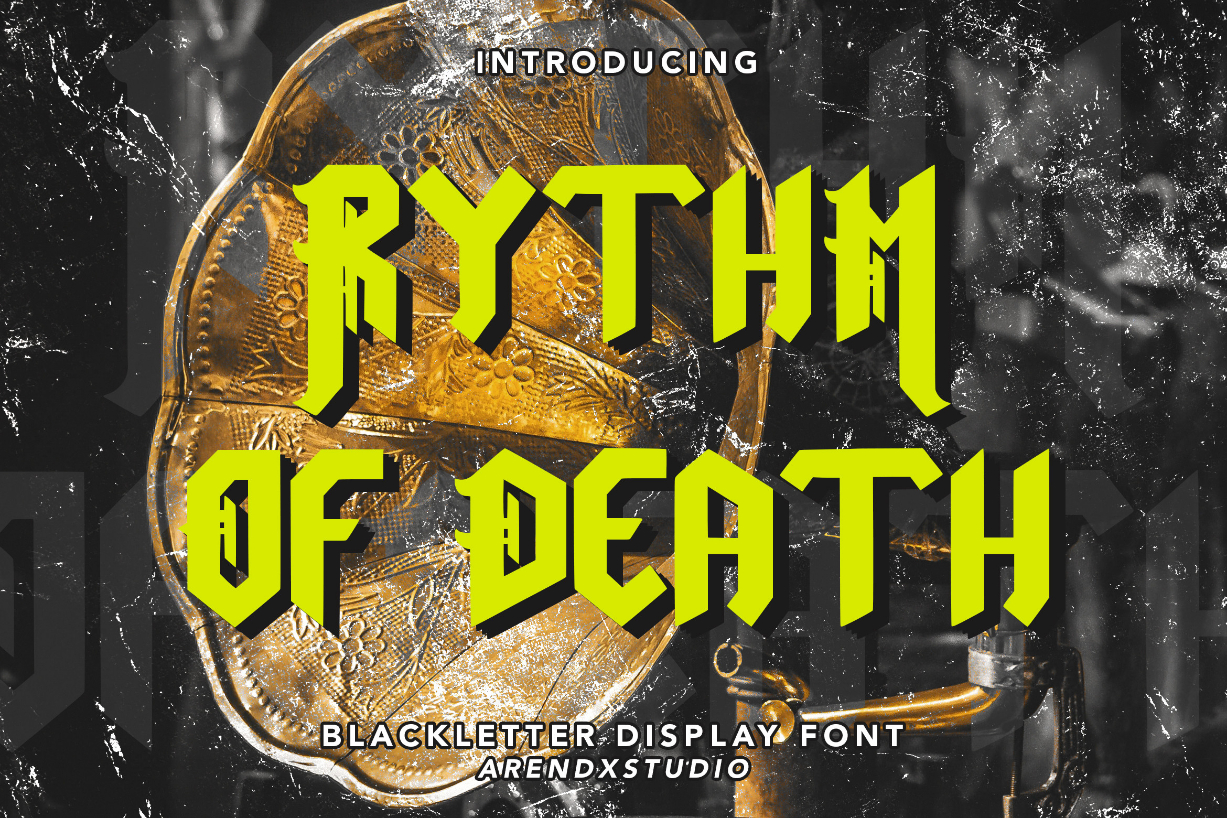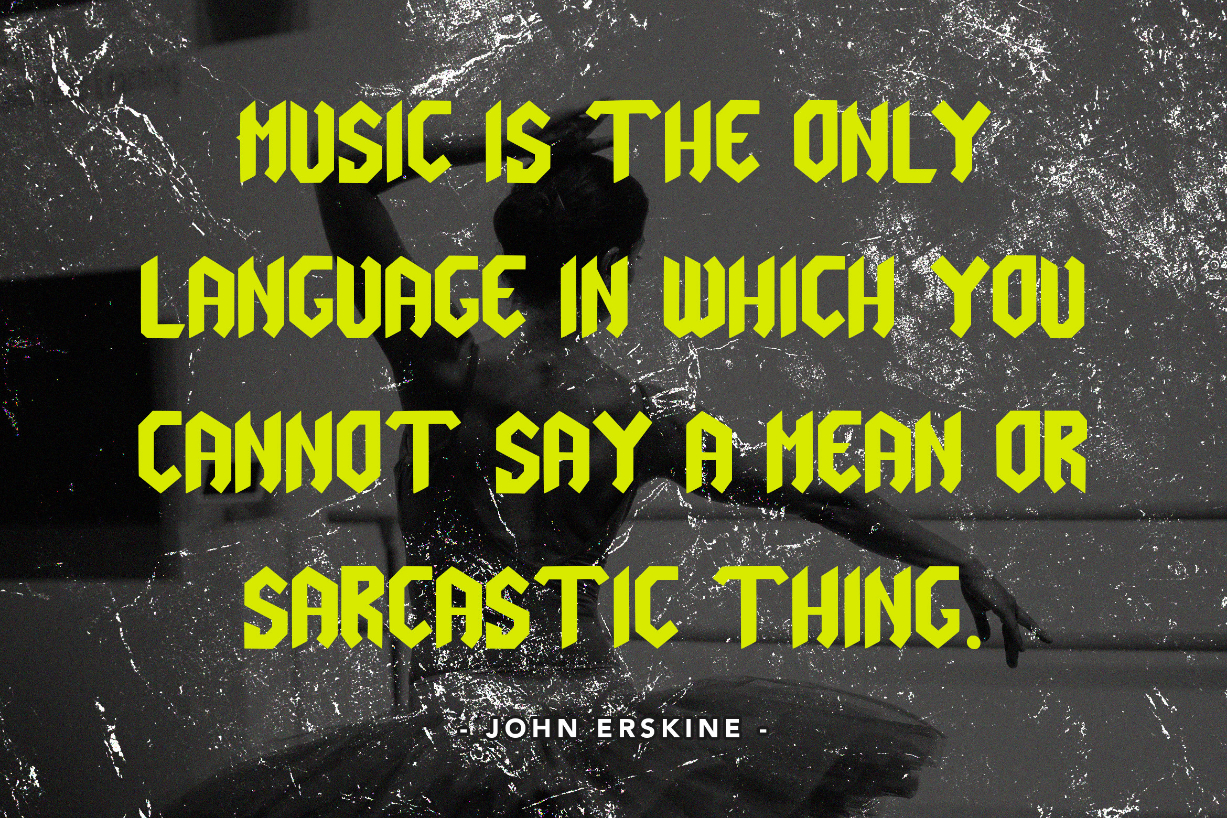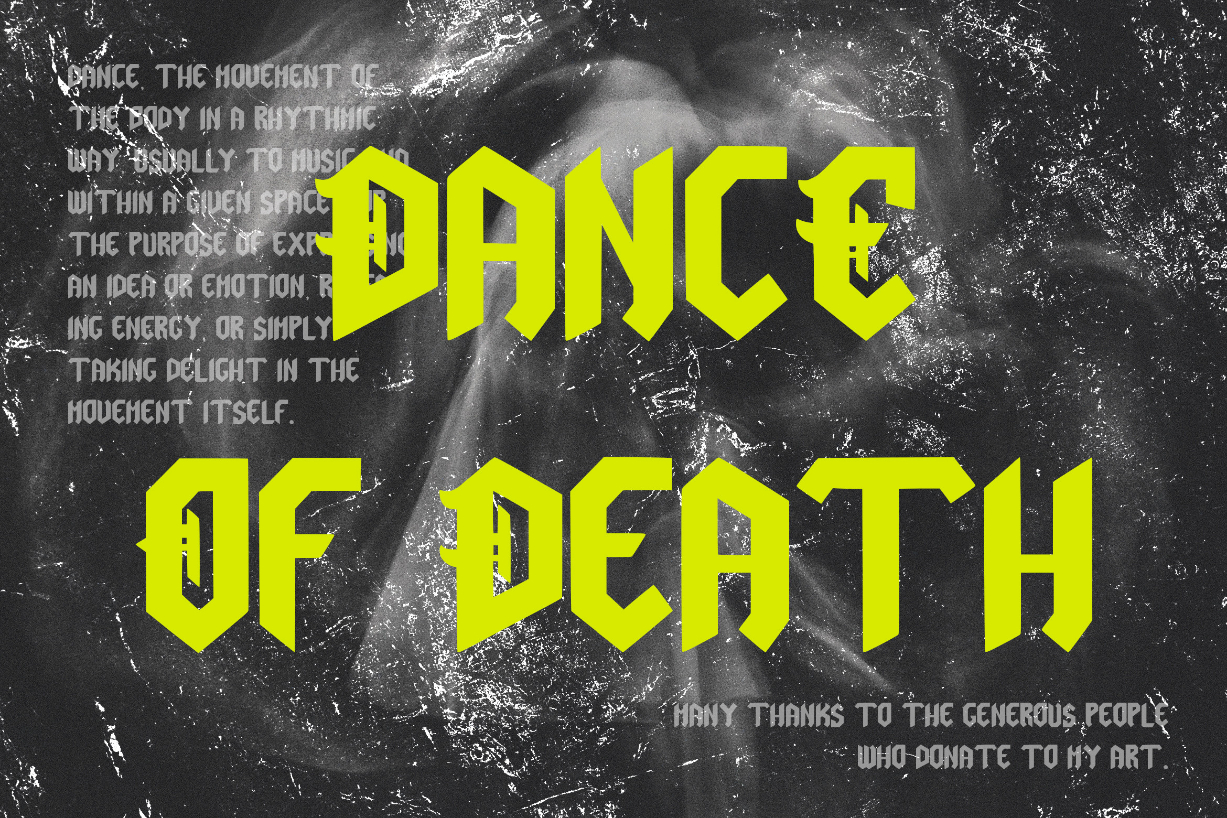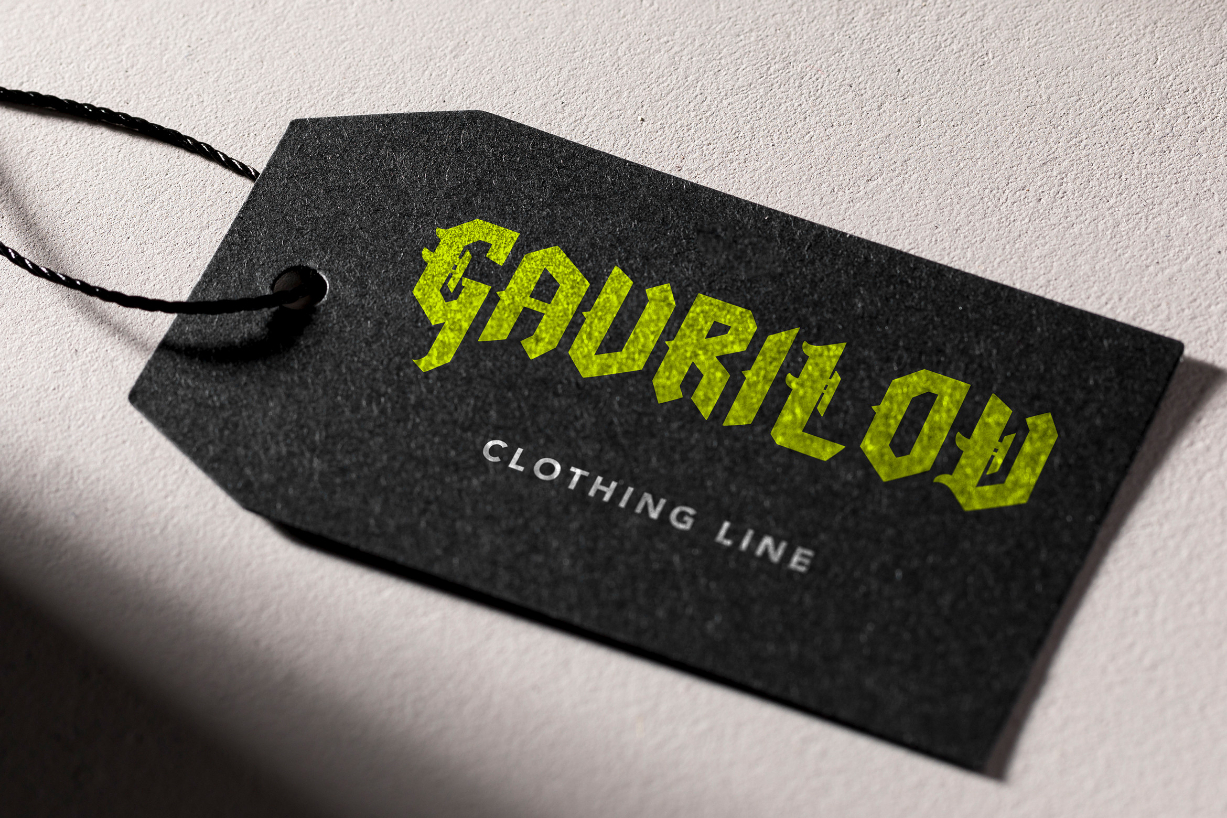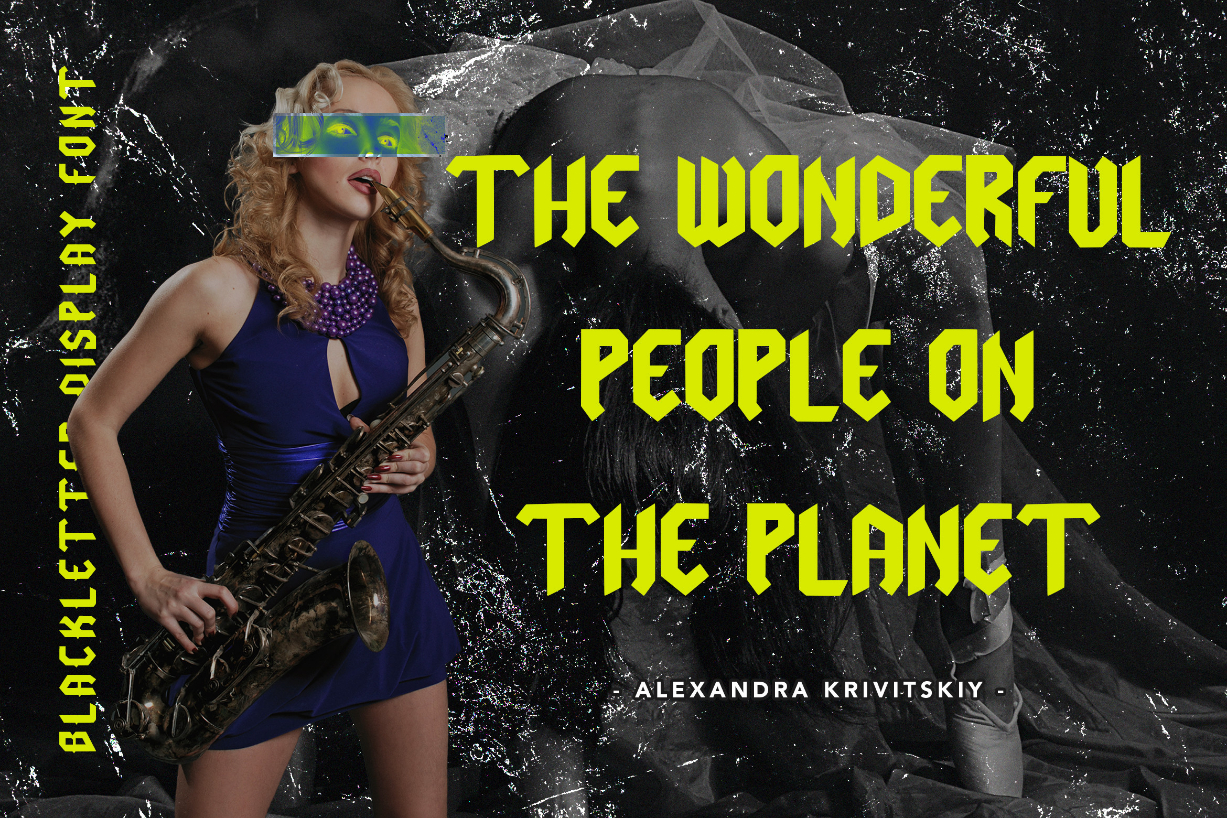
About Rythm of Death Font
Rythm of Death is a cool, bold and thick lettered blackletter font. No matter the topic, this font will be an incredible asset to your fonts’ library, as it has the potential to elevate any creation.